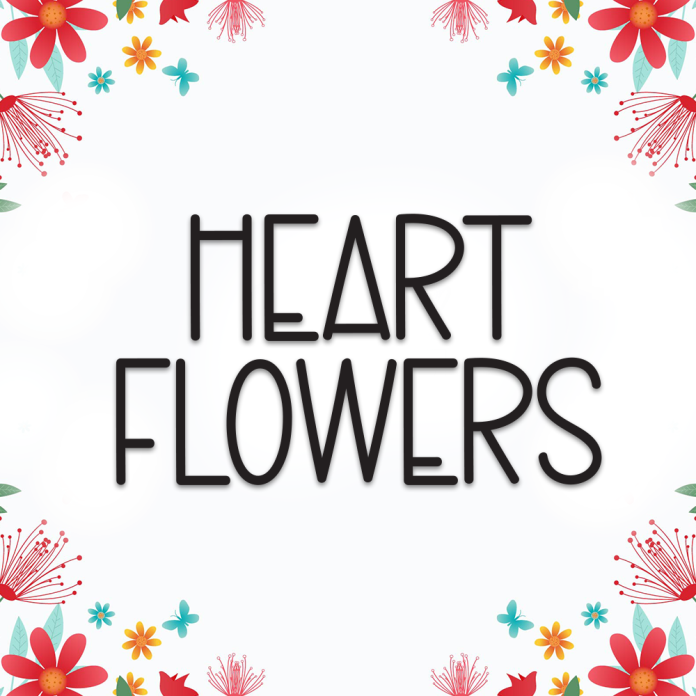
Heart Flowers is a sweet and decorative display font that combines floral elegance with a romantic charm. Each letter is adorned with heart and flower elements, making it perfect for designs that need a touch of love and beauty.
Playful decorative style with heart and floral accents
Perfect for wedding invitations, Valentine’s Day cards, and romantic branding
Eye-catching and creative letterforms
Includes uppercase, lowercase, numbers, and punctuation
Supports multiple languages
Add a blooming touch of romance to your designs with Heart Flowers.